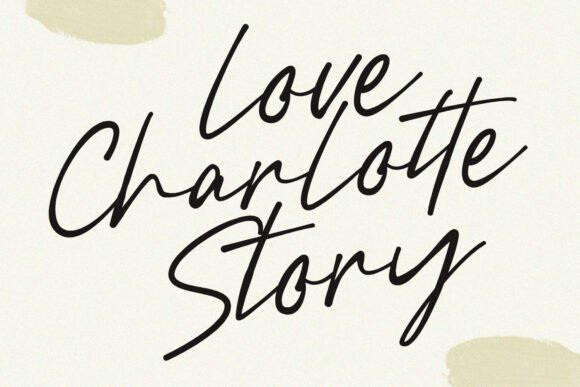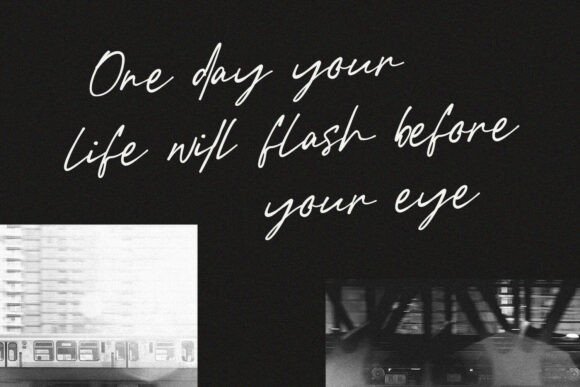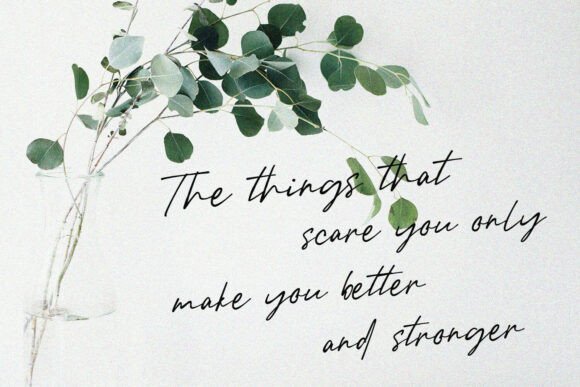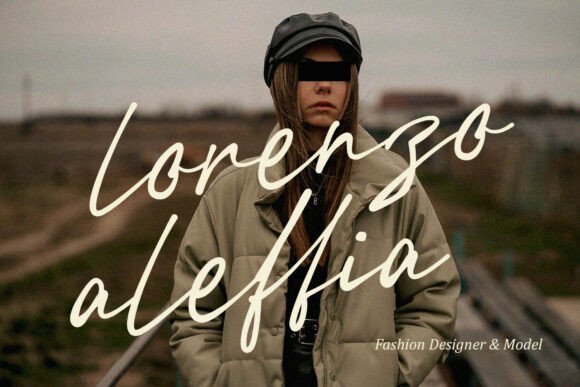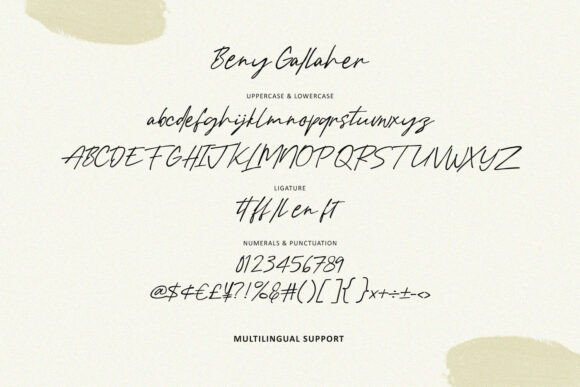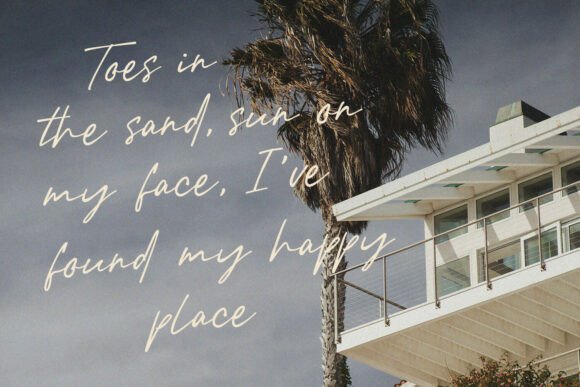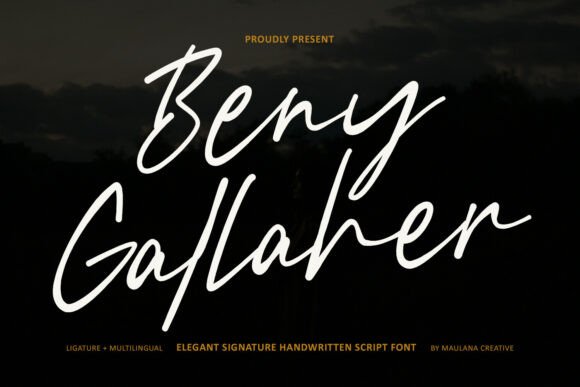
Discover the Elegance of Beny Gallaher Font
Have you ever been in the middle of a design project, and suddenly, you’re stuck on finding the perfect font? I recall a recent experience where I was working on a luxury branding project, and my client requested a font that exuded elegance and sophistication. After hours of searching, I stumbled upon Beny Gallaher, a stunning handwritten script font that instantly captured the essence of what I was looking for.
Beny Gallaher is more than just a font β it’s an exquisite handwritten script designed to bring a touch of elegance and effortless style to your projects. With its fluid, natural strokes and sophisticated βsignatureβ feel, this font captures the essence of authentic handwriting.
What Makes Beny Gallaher Special?
Beny Gallaher is perfect for high-end branding, wedding invitations, luxury logos, social media quotes, and editorial designs. It features a comprehensive set of ligatures and multilingual support, ensuring your typography looks seamless and professional in various languages.
- Elegant & Fluid Strokes: Mimics real handwriting for a touch of authenticity β¨
- Beautiful Ligatures: Enhance the natural flow of the letters β
- Full Character Set: Includes Uppercase, Lowercase, Numerals, and Punctuation π
- Multilingual Support: Ready for global design needs π
- Versatile Use: Ideal for signatures, watermarks, photography, and fashion branding πΈ
- The fluid strokes and natural feel of the font make it perfect for luxury branding and editorial designs β¨
- The comprehensive set of ligatures and multilingual support ensures seamless typography in various languages β
- The font is incredibly versatile and can be used for a wide range of design projects π
While Beny Gallaher is an exceptional font, there are a few minor considerations to keep in mind β οΈ:
- Some users might find the font a bit challenging to read in smaller sizes, especially for body text π€
- The font’s script nature might not be suitable for very formal or traditional designs π
The Designer Inspiration Behind Beny Gallaher
The story behind Beny Gallaher is one of passion and dedication. The font was designed by a talented typographer who aimed to create a script font that captured the essence of authentic handwriting. With its fluid strokes and elegant feel, Beny Gallaher is a testament to the power of handwriting in digital design.
Q: Is Beny Gallaher suitable for body text?
A: While Beny Gallaher is an elegant font, it might not be the best choice for body text due to its script nature and potential readability issues in smaller sizes π
Q: Does Beny Gallaher support multilingual languages?
A: Yes, Beny Gallaher features multilingual support, making it an excellent choice for global design projects π